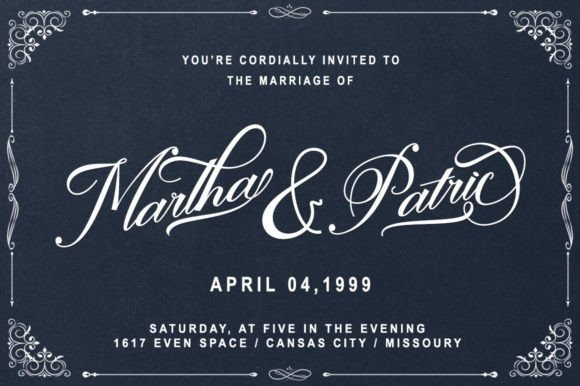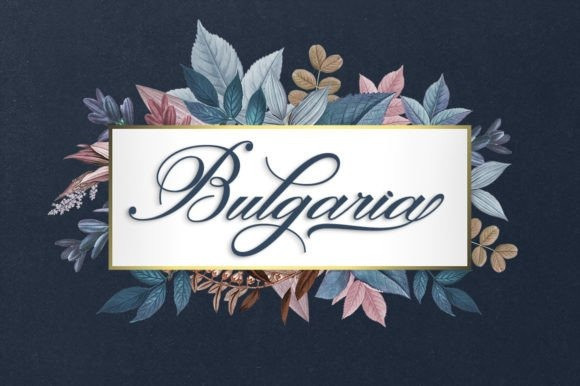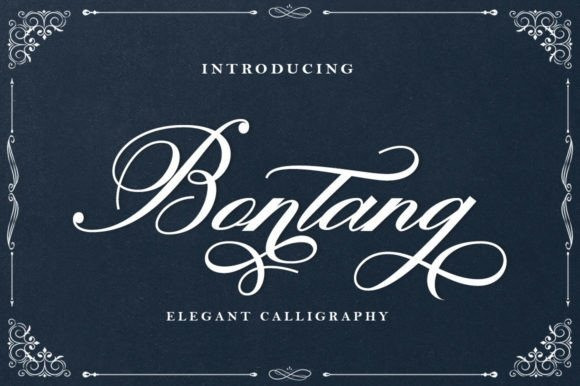
Bontang Font
Bontang Calligraphy Font is a dazzling script font. This font is neatly crafted and highly detailed. Whatever the topic, this font will be a wonderful asset to your font library, as it has the potential to enhance any creation.